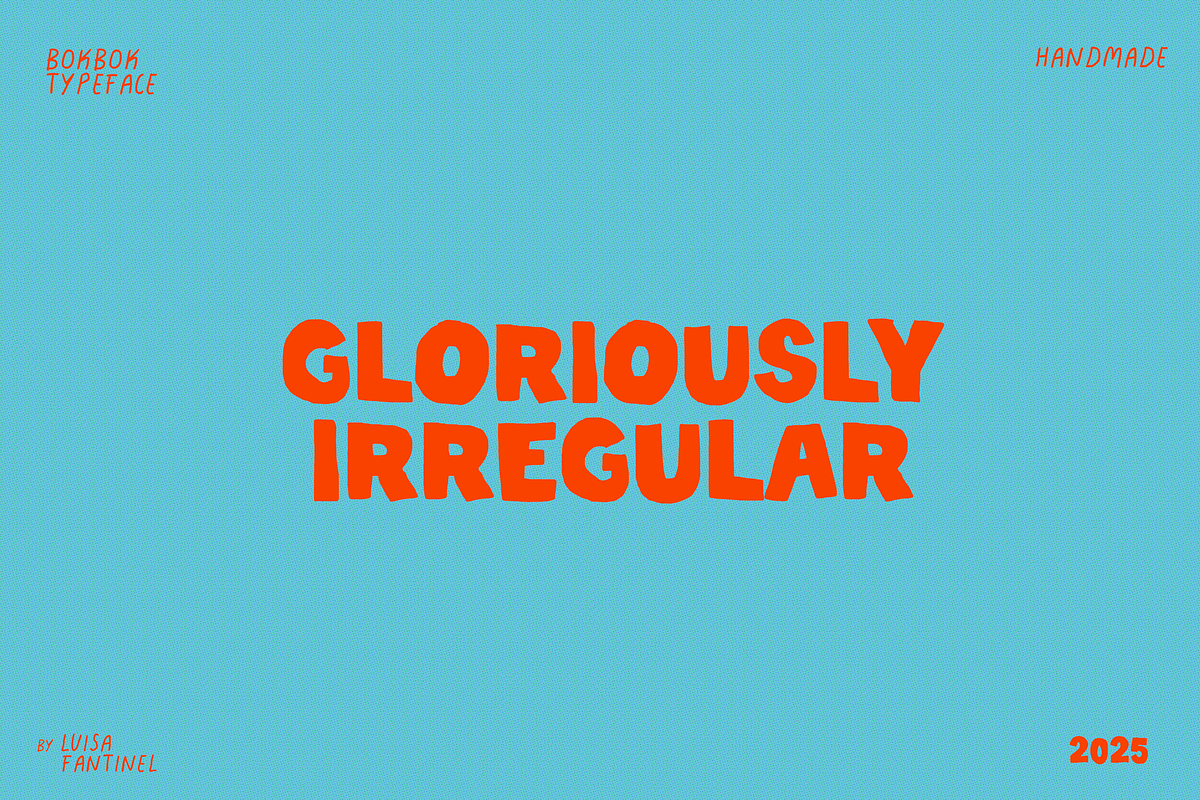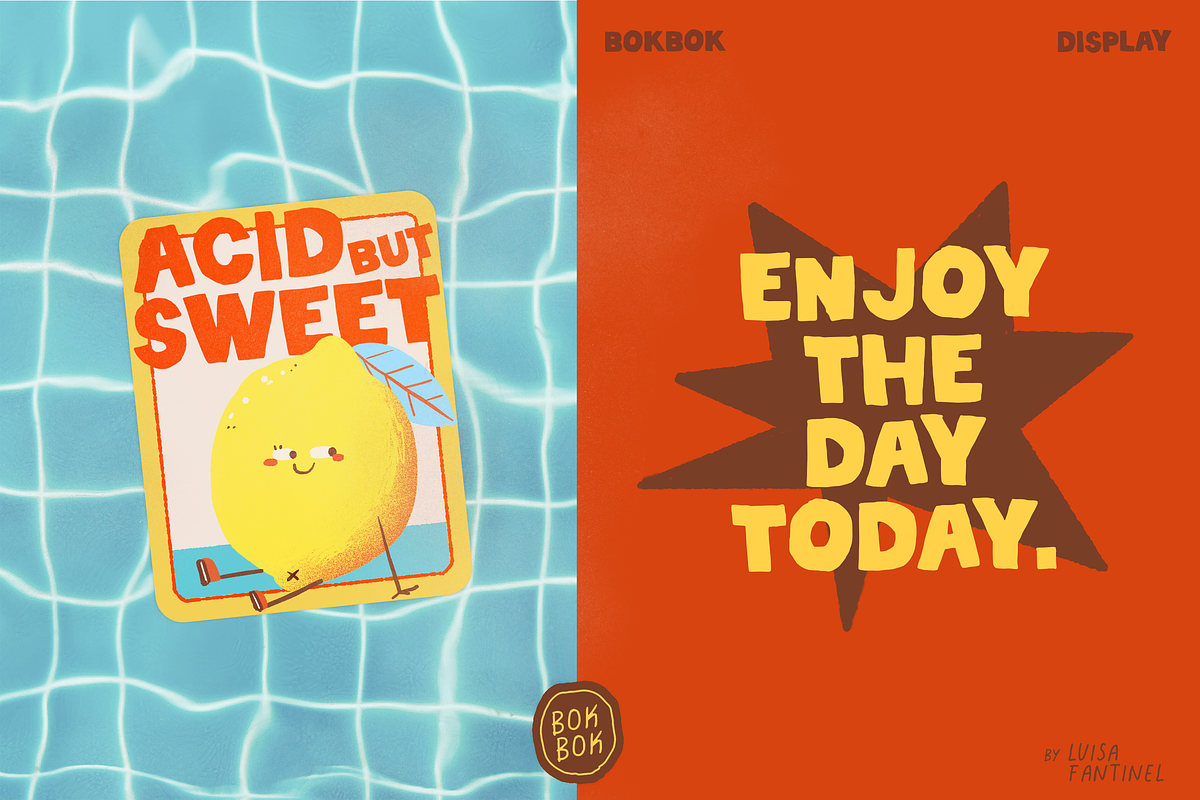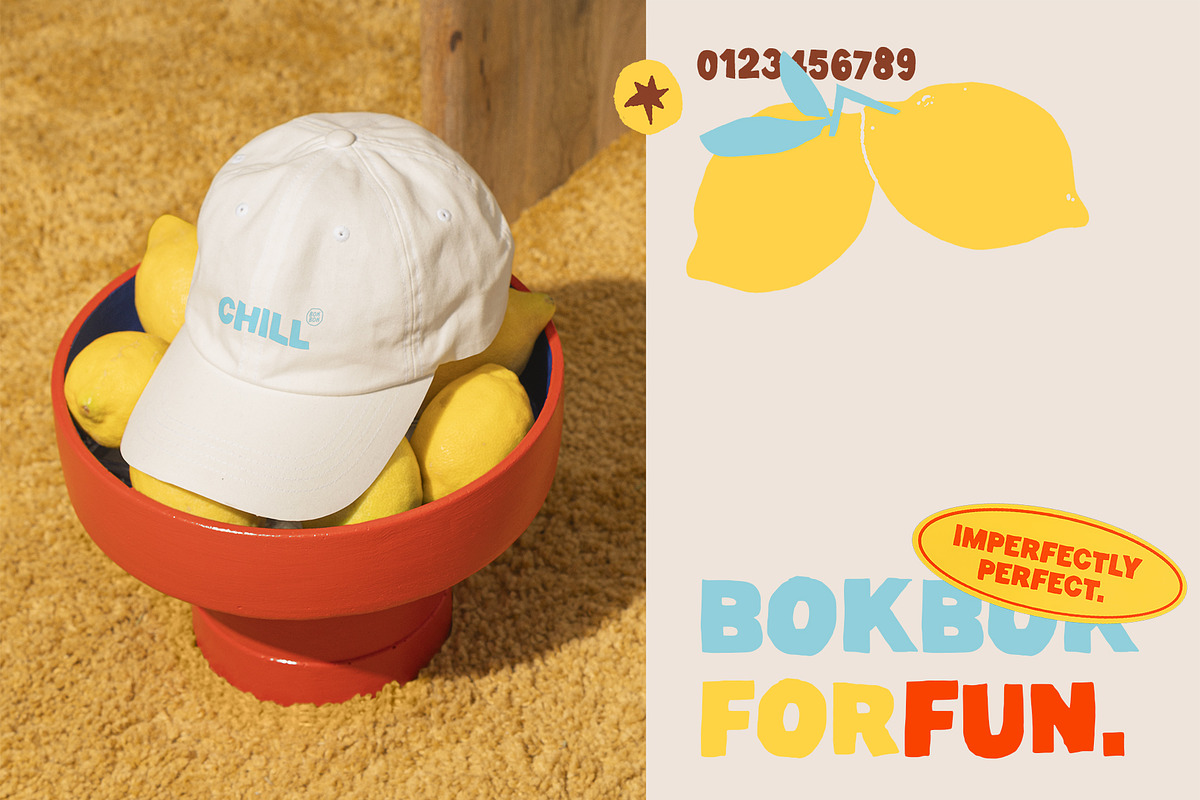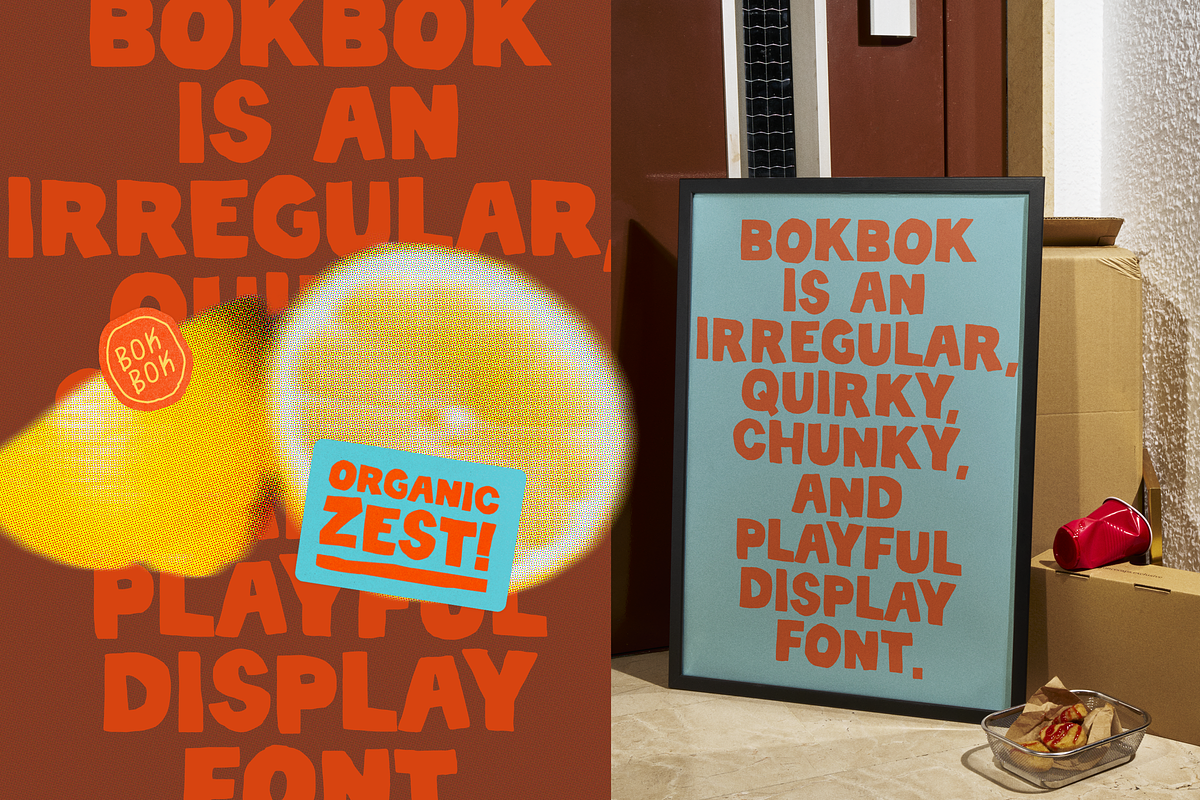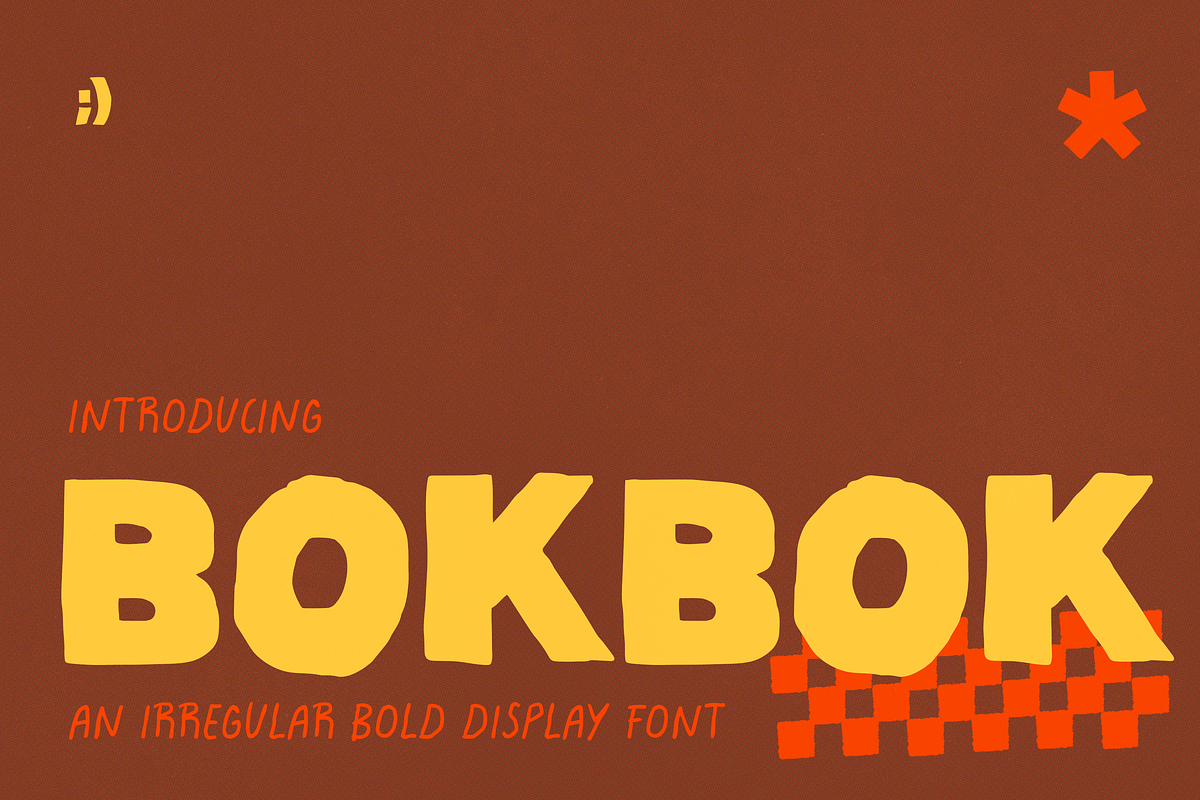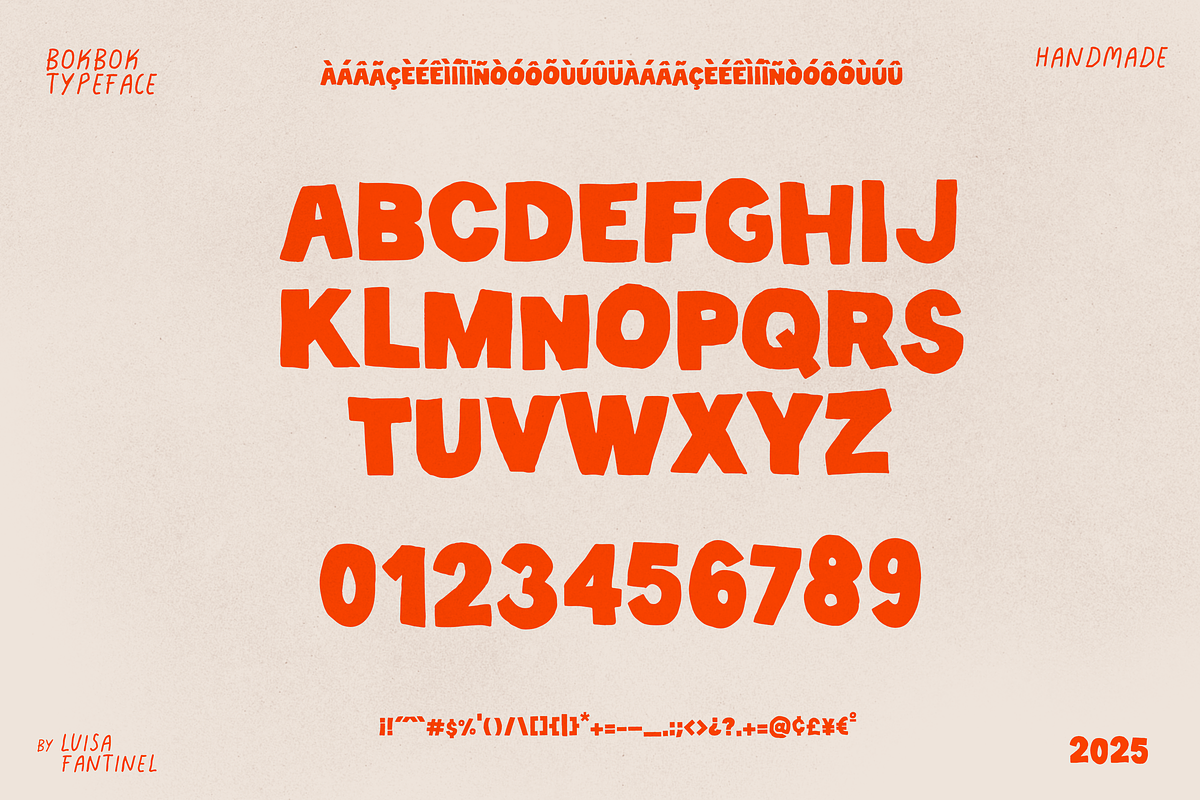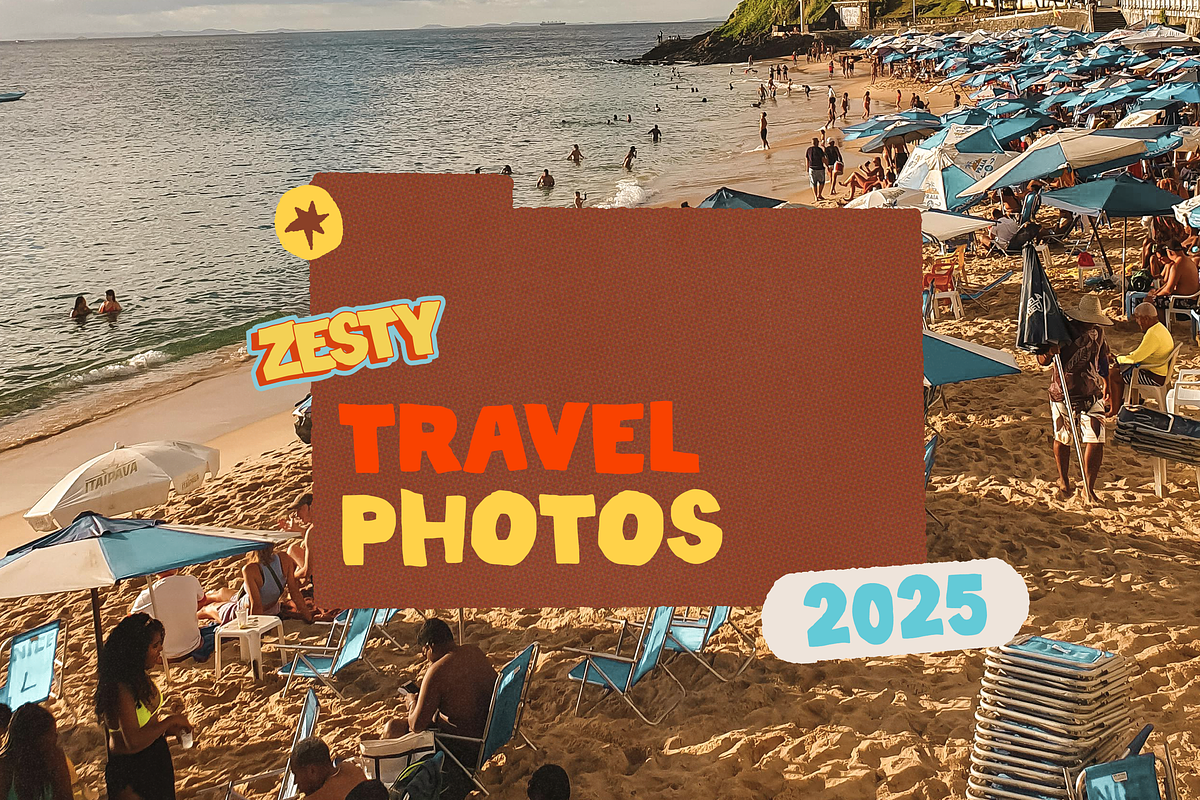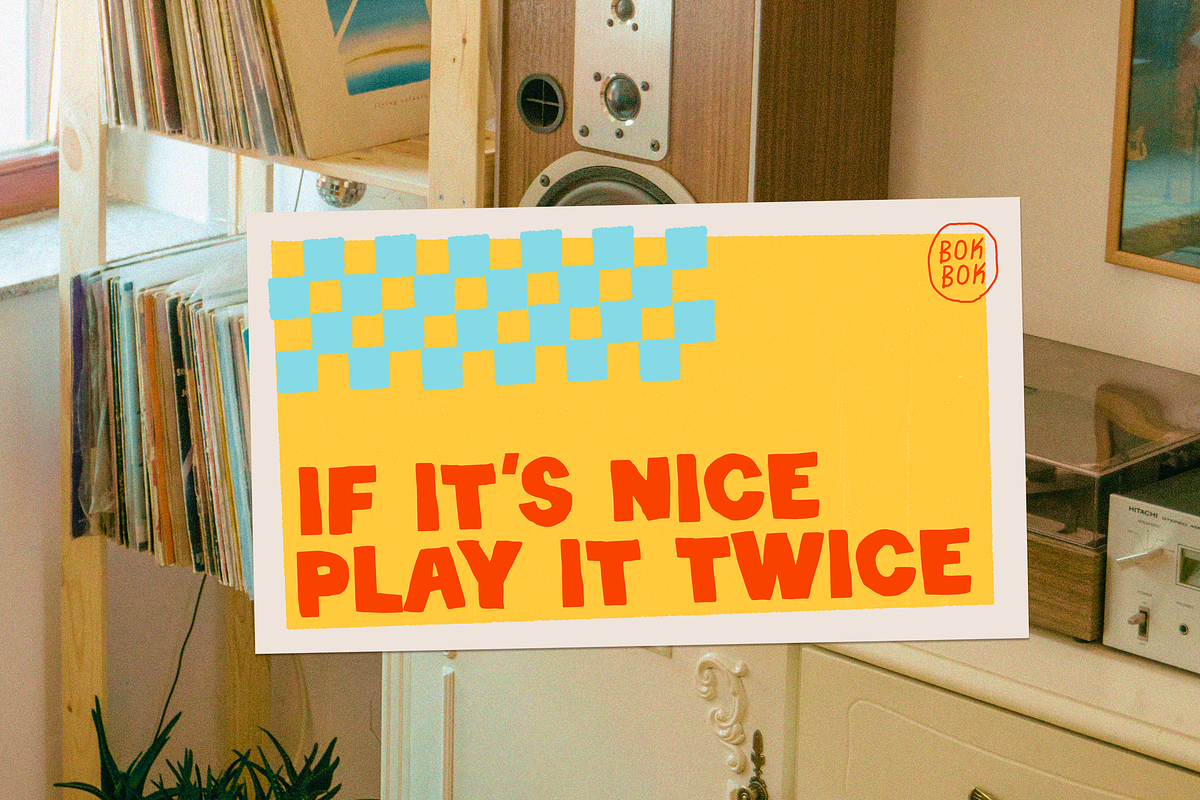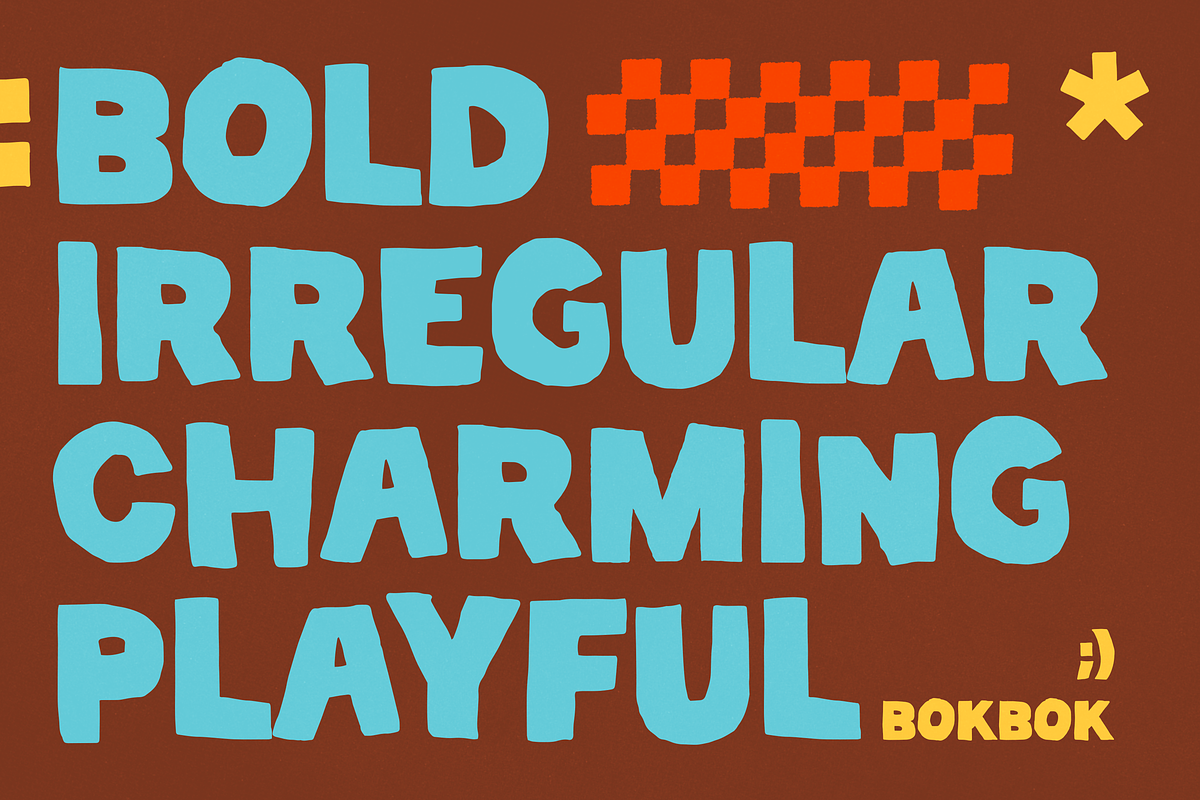
BOKBOK bold handmade display
BOKBOK is an irregular, quirky display font with a distinctly handmade touch — perfect for adding character and charm to any project.